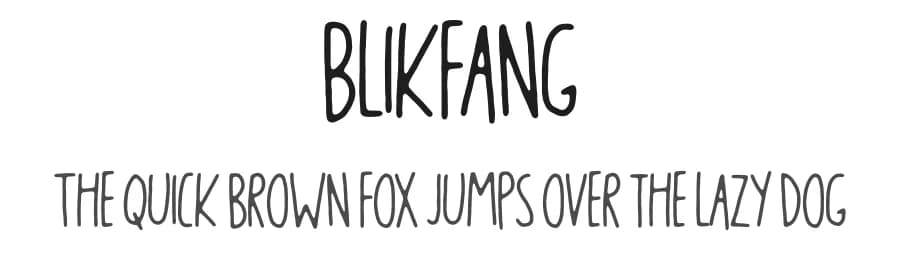
About Blikfang Font
Blikfang Font is a script font that shines as a display or heading face. Pair it with a clean sans-serif or serif font for body text β the contrast creates a clear hierarchy while the two styles stay balanced and easy to read.
Blikfang Font